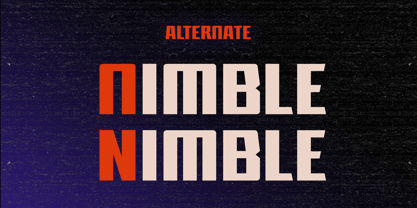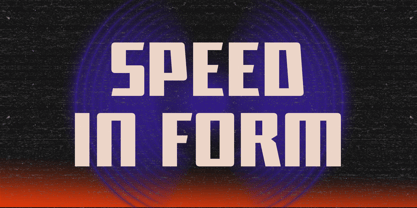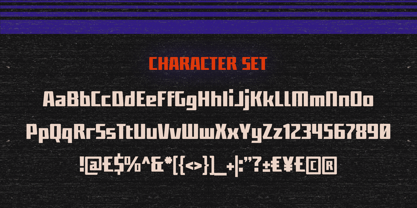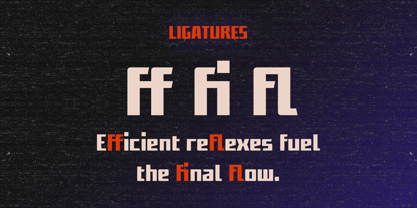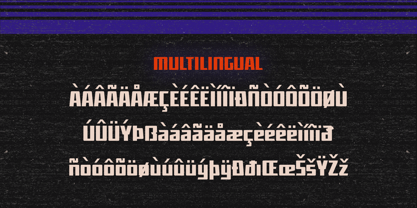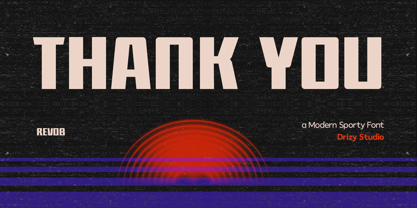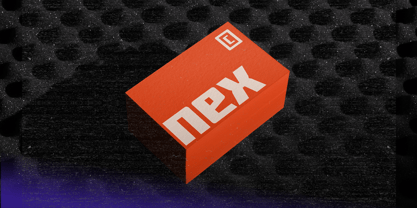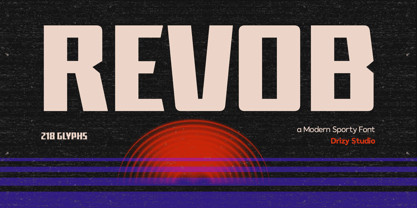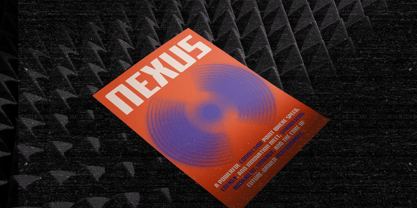
Revob
by Drizy Font
The Revob Font Family was designed by Panca Ahmadi Hasan and published by Drizy Font. Revob contains 1 styles. More about this family
Revob – Modern Sporty Font Revob is a modern sporty broadcast font designed to deliver bold energy and dynamic impact. Inspired by sports broadcasting graphics, racing aesthetics, and athletic branding, Revob features strong geometric shapes, sharp cuts, and a powerful presence that instantly grabs attention. Perfect for sports titles, esports branding, team logos, jerseys, posters, YouTube thumbnails, and broadcast graphics, Revob brings a fast, competitive, and professional feel to any design. Its clean yet aggressive style ensures excellent readability while maintaining a high-performance visual identity. Revob – Modern Sporty Font features: Uppercase & Lowercase Punctuation & Numbers Multilingual Ligatures Alternates Elevate and explore the design possibilities with this Sporty Broadcast Font!
Designers: Panca Ahmadi Hasan
Foundry: Drizy Font